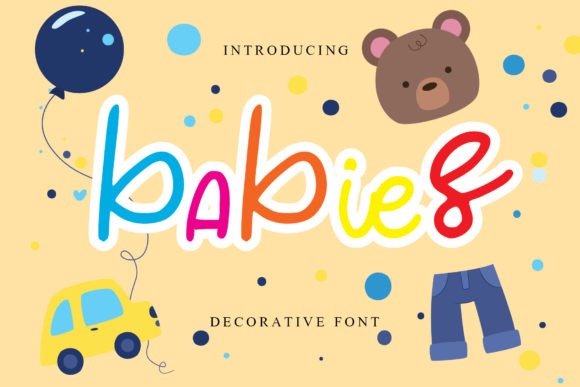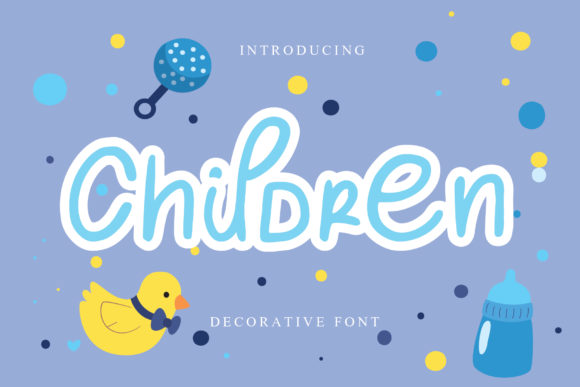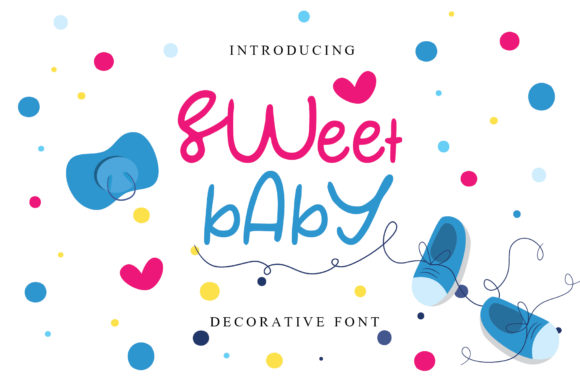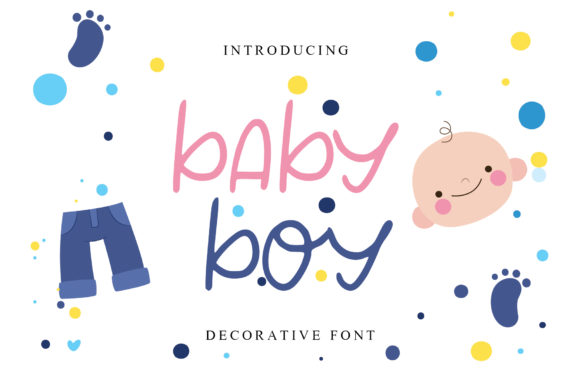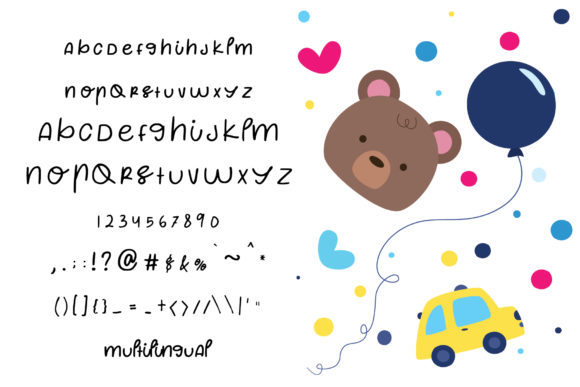
Babies Font: The Ultimate Display Font for Your Creative Projects
Are you looking for a font that can add a touch of cuteness and friendliness to your designs? Look no further than Babies Font! This beautiful display font is designed to brighten up each of your creative projects and make them stand out from the crowd. In this article, we’ll take a closer look at Babies Font, its features, and how you can use it to take your designs to the next level.
What is Babies Font?
Babies Font is a modern display font that is perfect for designers, crafters, and anyone looking to add a playful touch to their projects. This font is designed to be highly versatile, making it suitable for a wide range of applications, from branding and advertising to packaging and social media graphics.
Key Features of Babies Font
- Cute and Friendly Design: Babies Font is designed to be adorable and approachable, making it perfect for projects that require a playful touch.
- Highly Legible: This font is optimized for readability, ensuring that your text is easy to read, even at small sizes.
- Versatile: Babies Font can be used for a wide range of projects, from digital graphics to print materials.
- Easily Customizable: This font can be easily customized to fit your brand’s style and aesthetic.
How to Use Babies Font in Your Designs
Babies Font is incredibly easy to use and can be incorporated into your designs in a variety of ways. Here are a few ideas to get you started:
- Branding and Advertising: Use Babies Font to create eye-catching logos, advertisements, and promotional materials that will grab the attention of your target audience.
- Social Media Graphics: Add a playful touch to your social media graphics, such as Facebook posts, Instagram stories, and Twitter headers, with Babies Font.
- Packaging Design: Use Babies Font to create adorable packaging designs that will make your products stand out on store shelves.
- Crafting and Scrapbooking: Add a personal touch to your crafting and scrapbooking projects with Babies Font.
Tips and Tricks for Getting the Most Out of Babies Font
Here are a few tips and tricks to help you get the most out of Babies Font:
- Pair with Other Fonts: Babies Font pairs well with other fonts, so don’t be afraid to try pairing it with different fonts to create a unique look.
- Use it Consistently: Use Babies Font consistently across all of your designs to create a cohesive brand identity.
In conclusion, Babies Font is a beautiful display font that can add a touch of cuteness and friendliness to your designs. With its highly legible design, versatility, and ease of customization, Babies Font is perfect for designers, crafters, and anyone looking to take their creative projects to the next level. So why wait? Download Babies Font today and start creating adorable designs that will capture the hearts of your audience!